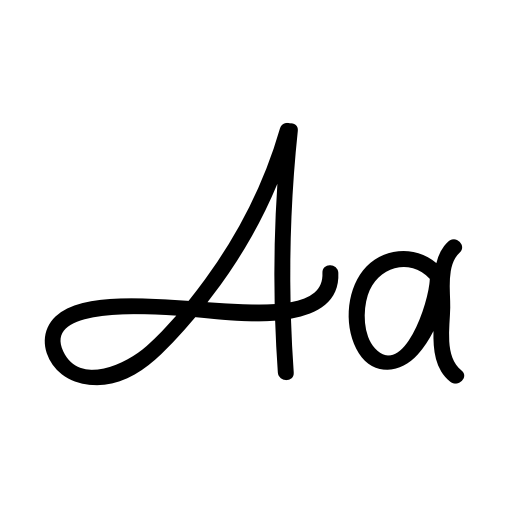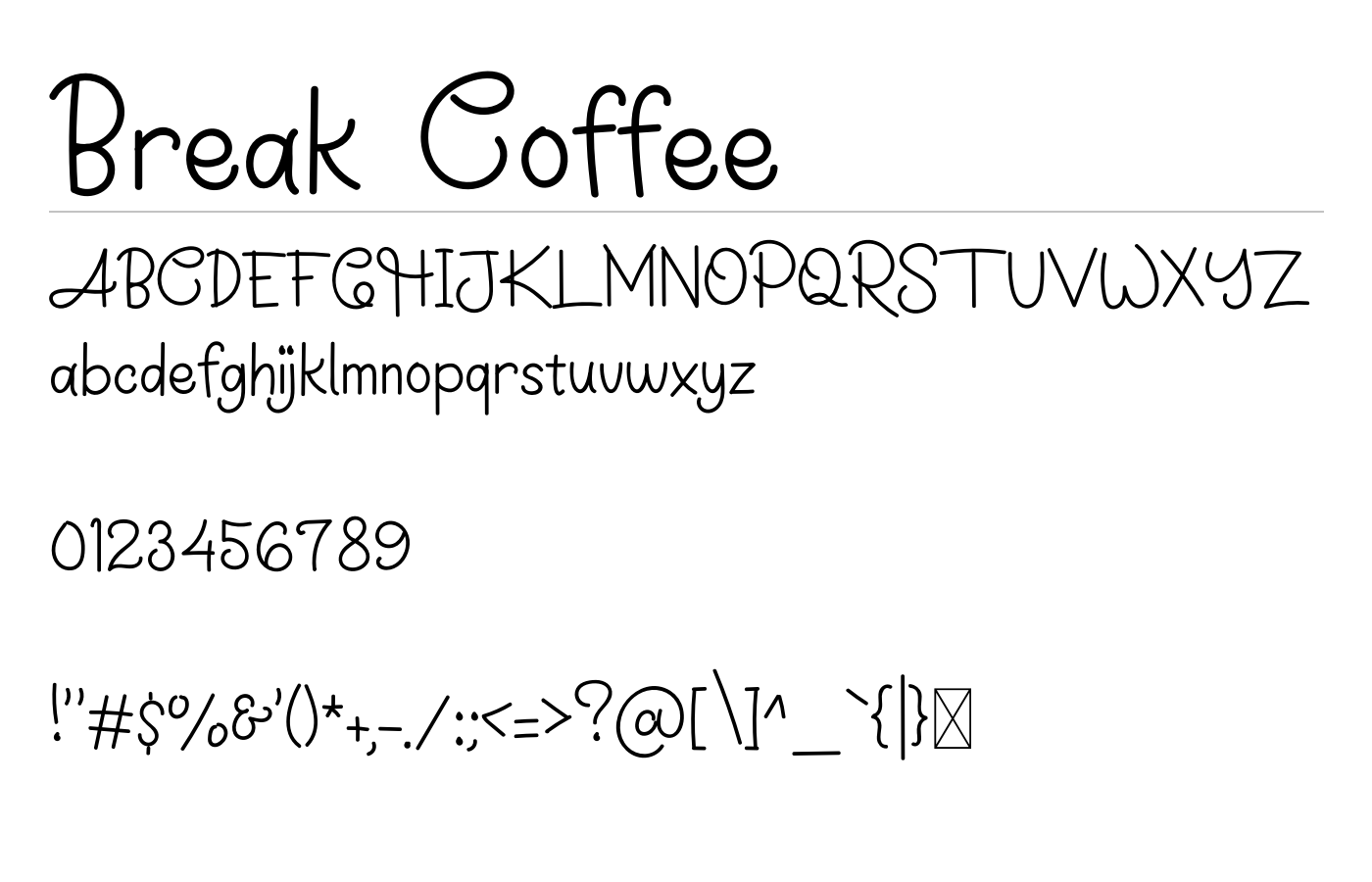
Break Coffee is a playful, handwritten sans serif font with a casual and friendly vibe. Its slender, uneven strokes and whimsical letterforms make it perfect for informal designs like coffee shop branding, children’s books, or creative projects that need a warm, approachable feel. This font works well in headlines and logos where a personal, relaxed touch is desired.
Break Coffee Font